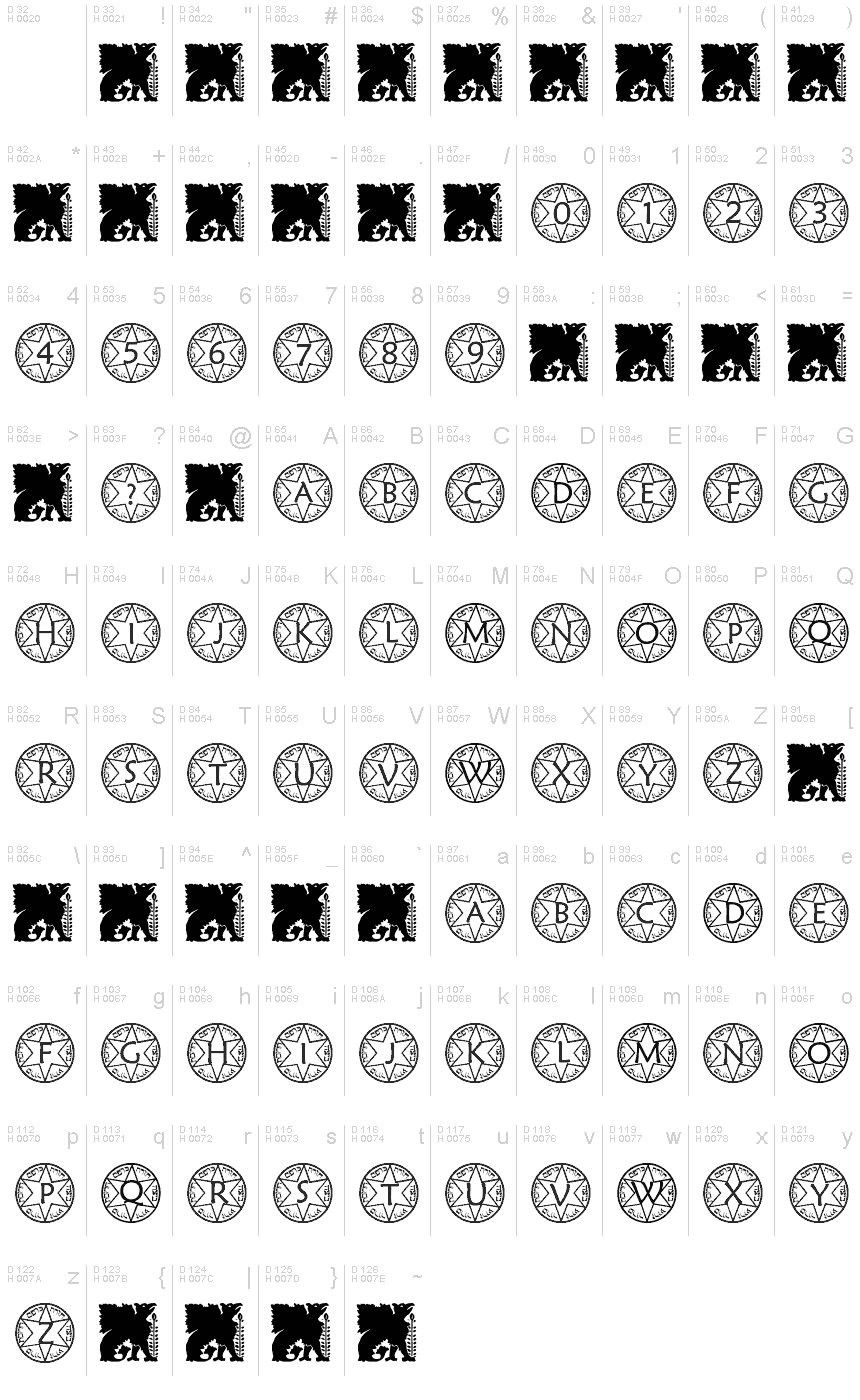
pf_sstar1
PF Sstar 1 is a captivating display font that exudes a sense of bold, ethereal elegance. Designed by Planck Foam Scholarly Dragon Press, this decorative typeface showcases a striking star-shaped motif repeated across each glyph, creating a visually arresting and distinctive aesthetic.
The symmetrical, geometric patterns within the characters lend the font a mesmerizing, almost celestial quality, making it well-suited for a variety of high-impact design applications. From fashion editorials and album covers to event branding and luxury packaging, PF Sstar 1's captivating flair can elevate any project with its unique, eye-catching presence.